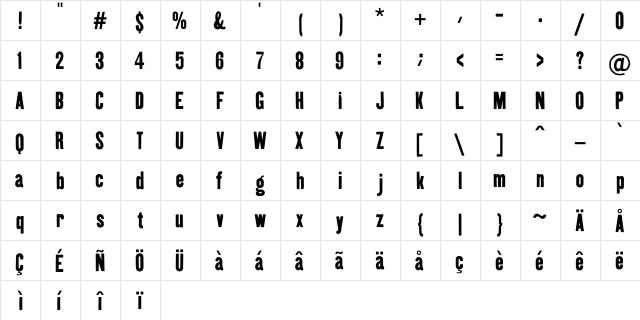
Kipp No1
Design Context for Kipp Typeface
Kipp is a composed and adaptable typeface that performs quietly and consistently across a wide range of design contexts.